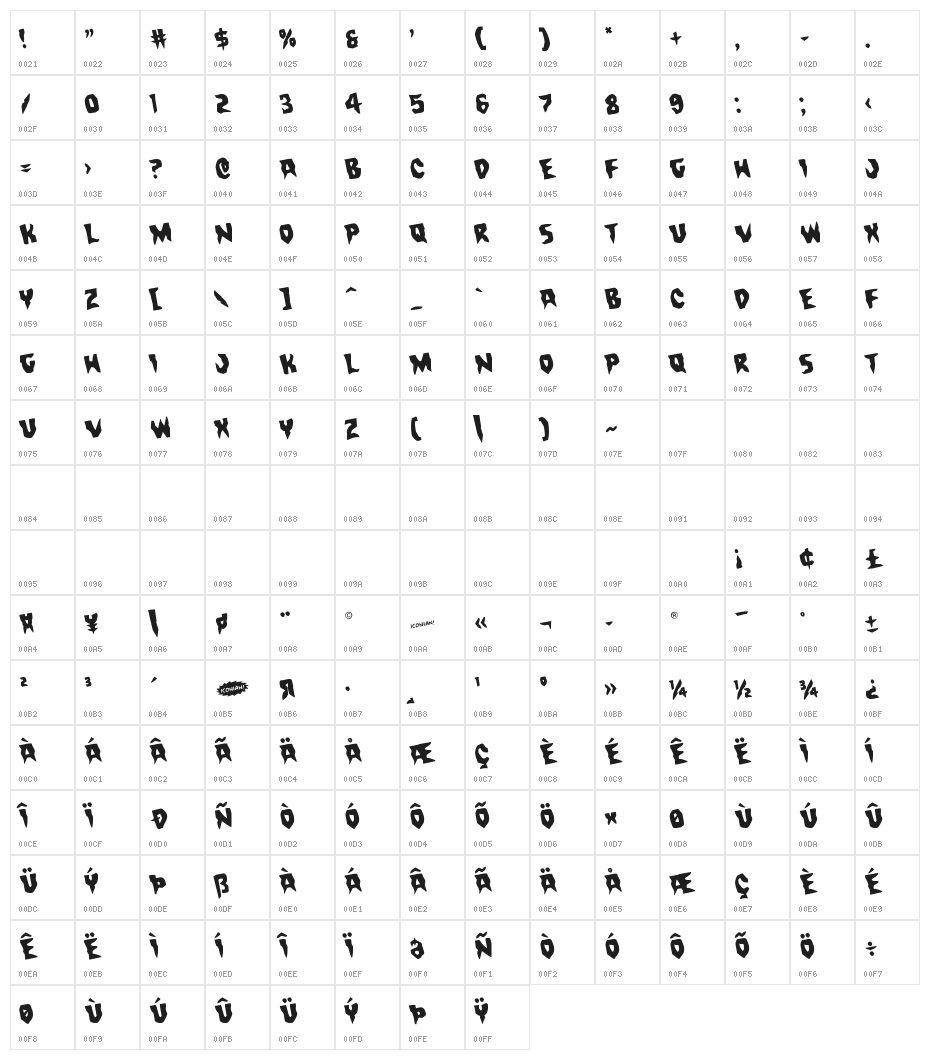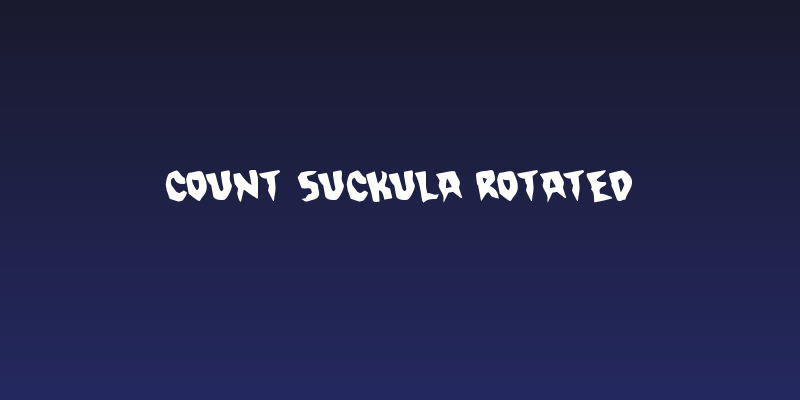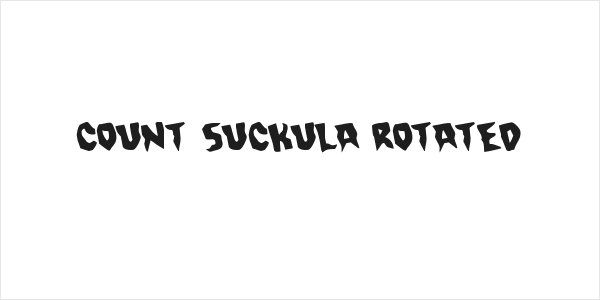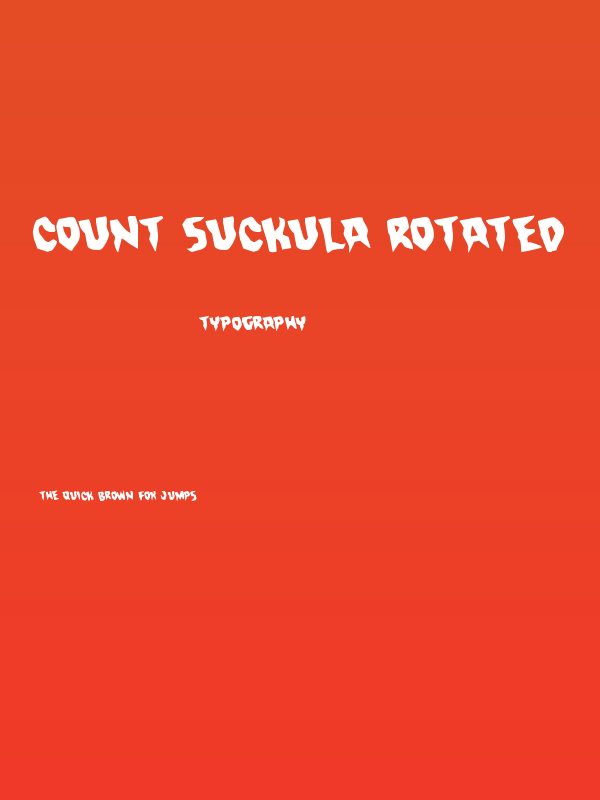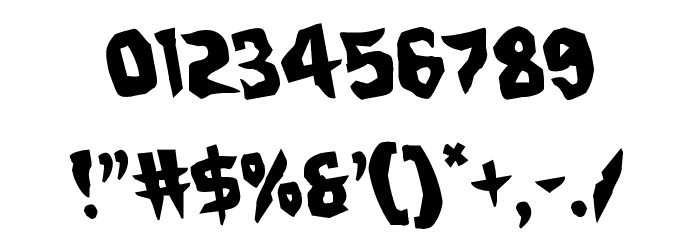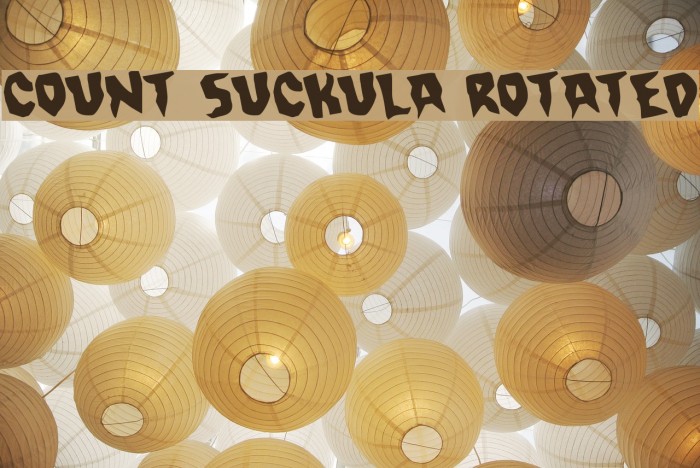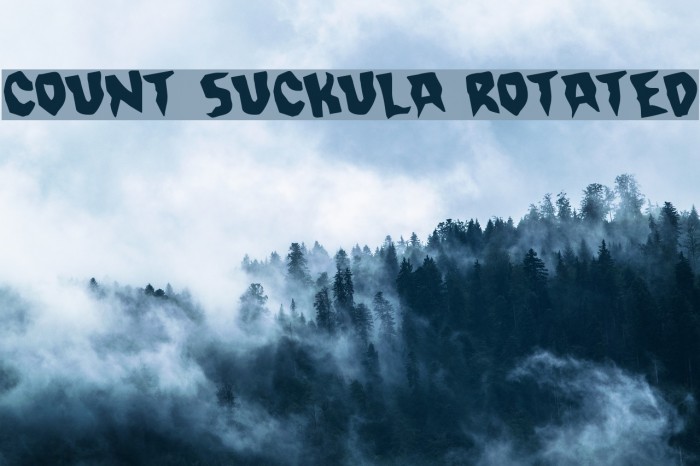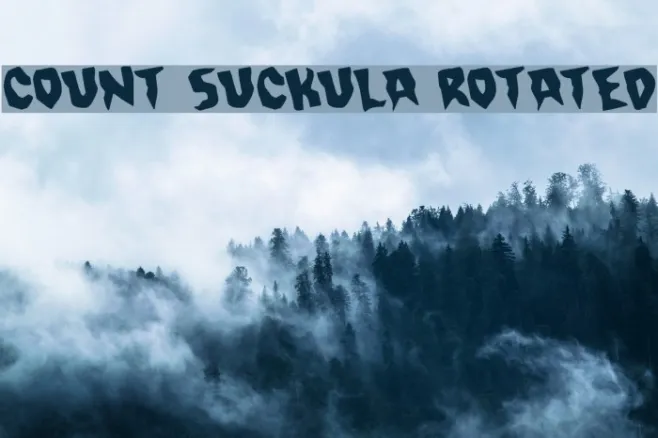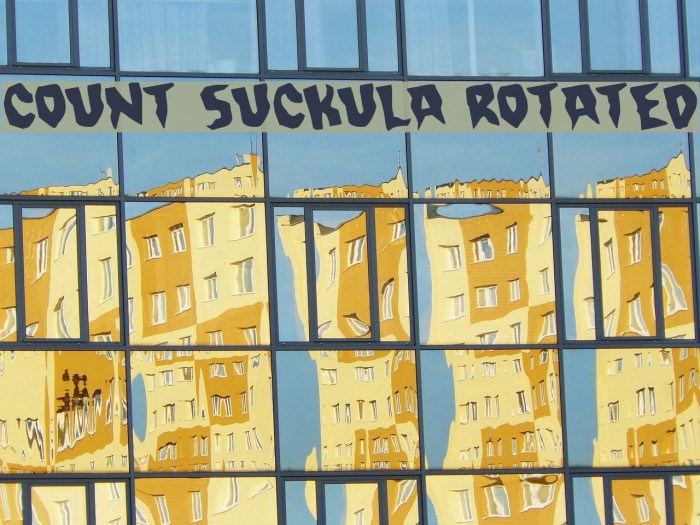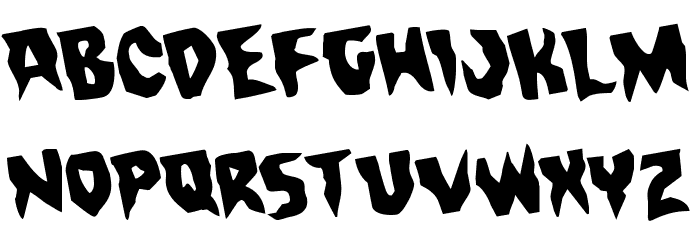
Count Suckula Rotated Font
Count Suckula Rotated Description
This font features a bold and jagged style, reminiscent of horror or Halloween-themed designs. The characters have sharp, angular edges and an irregular form, giving them a spooky and unsettling appearance. The uppercase and lowercase letters maintain a consistent style, with exaggerated points and a slightly uneven baseline, enhancing the eerie aesthetic. The numbers and special characters follow the same design principles, ensuring a cohesive look across all glyphs. This font is perfect for creating eye-catching titles or graphics that require a dramatic and thematic impact.